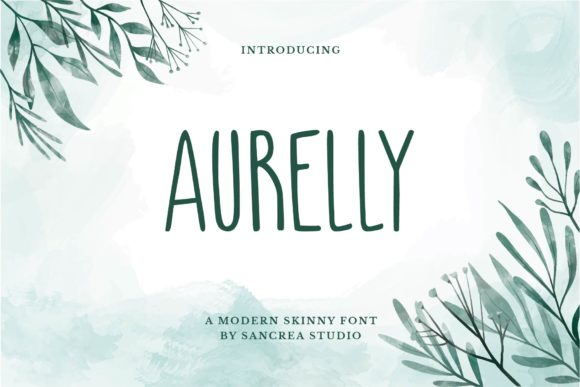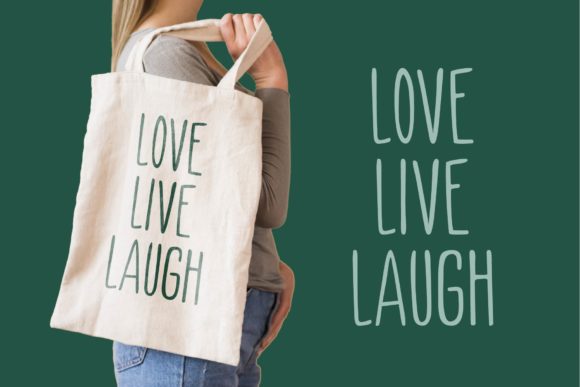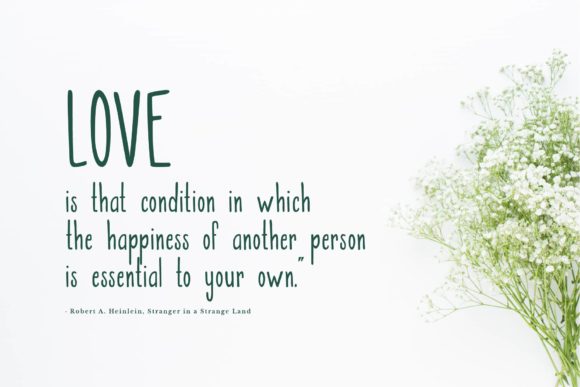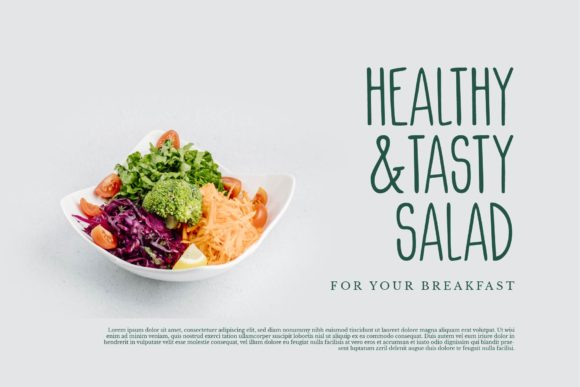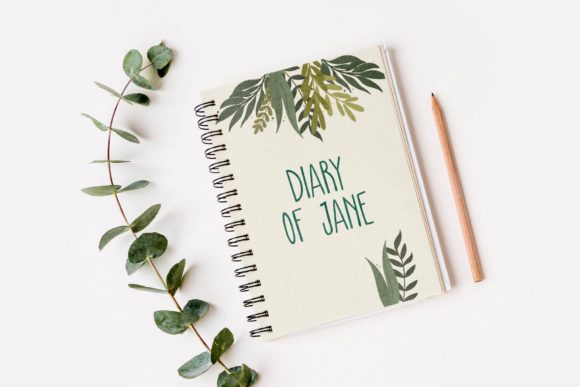
About Aurelly Font
Aurelly is a skinny and modern handwritten font. It is suitable for any branding, product packaging, invitation, quote, t-shirt, label, poster, logo that you wish to develop.